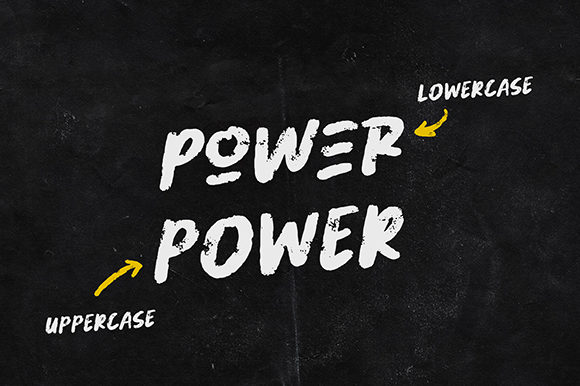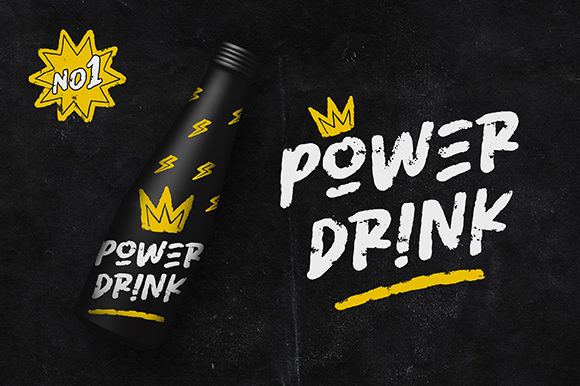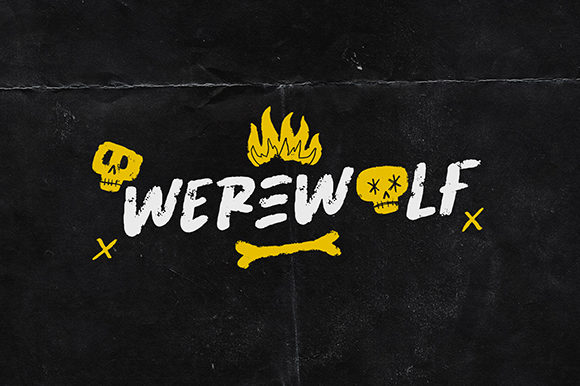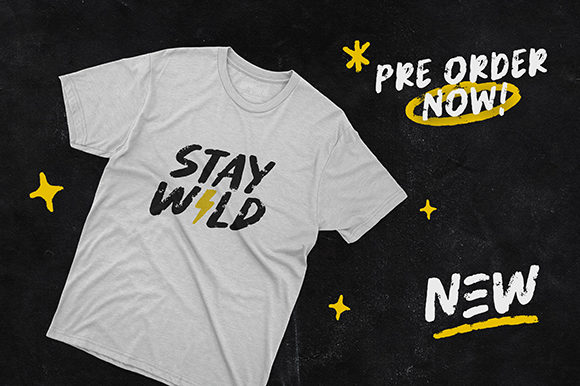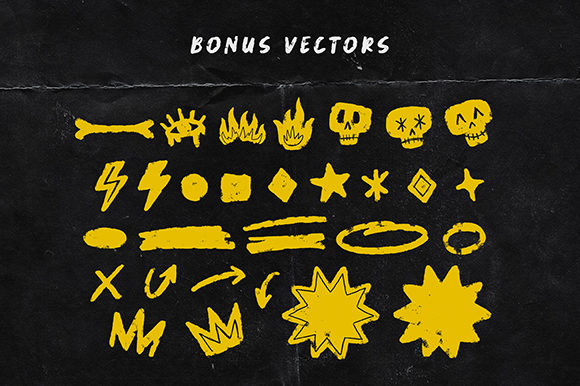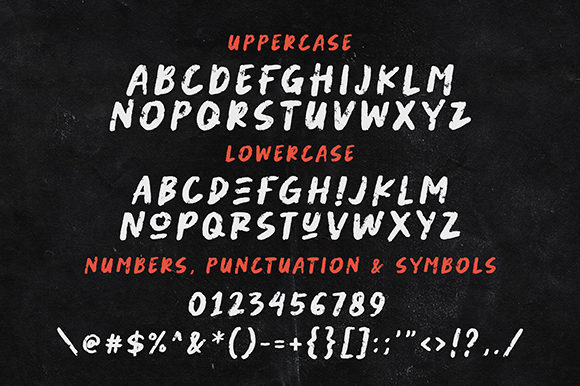
Embracing the Edginess: Unleashing the Power of Abused Font
There’s nothing quite like the thrill of finding the perfect font to elevate your design. You’re scrolling through font libraries, and suddenly, a bold, rough-textured beauty catches your eye. It’s a font that screams for attention, begging to be used in a project that needs a little edge. This is exactly what happens when you come across the Abused Font.
As a display font, Abused is designed to make a statement. Its rough texture and bold strokes give it an assertive, eye-catching quality that’s perfect for adding some grit to your designs. Whether you’re working on a poster, a website, or a social media campaign, the Abused Font is sure to bring a touch of raw energy to your work.
For designers, the Abused Font is a valuable addition to their toolkit. Its versatility and edginess make it an ideal choice for projects that require a bold, attention-grabbing look. By incorporating the Abused Font into your designs, you’ll add a level of sophistication and style that’s hard to achieve with more traditional fonts.
Key Features of Abused Font
- Font Style: Abused Font is a distressed, rough, and gritty font with a unique, abused appearance, ideal for use in designs that require an edgy or vintage feel.
- Character Set: The font includes a wide range of characters, including uppercase and lowercase letters, numbers, and punctuation marks, making it suitable for various design applications.
- Unique Characteristics: The font’s unique, abused appearance is achieved through a combination of subtle texture and distortion effects, giving it a truly one-of-a-kind look.
- Legibility: Despite its distressed appearance, Abused Font remains highly legible, making it suitable for use in body text, headings, and other design elements where clarity is essential.
Abused Font Review
As a designer, I was immediately drawn to the unconventional and edgy vibe of Abused Font. The ✨ bold and distressed aesthetic is perfect for projects that need a touch of grit and rebellion. I particularly love how it adds a layer of complexity to simple text, making it stand out in a crowded design landscape.
However, there are some limitations to consider. The ⚠️ font’s readability can be a concern, especially at smaller font sizes or in complex compositions. Additionally, the distressed effect can sometimes come across as overdone or gimmicky, detracting from the overall message.
In terms of usage, I’d recommend Abused Font for:
- Rock music or edgy fashion branding
- Distressed or retro-style designs
- Projects that need a bold, attention-grabbing statement
Overall, Abused Font is a great addition to any designer’s toolkit, but it’s essential to use it judiciously and balance its boldness with other design elements. With careful consideration and restraint, Abused Font can be a powerful tool for creating visually striking designs that grab attention and leave a lasting impression.
Getting the Most Out of Abused Font
To get the most out of Abused Font, try the following tips:
- Use Abused Font for bold, eye-catching headlines.
- Pair Abused Font with other fonts for a unique and creative look.
- Experiment with different font sizes and colors to add emphasis and visual interest.